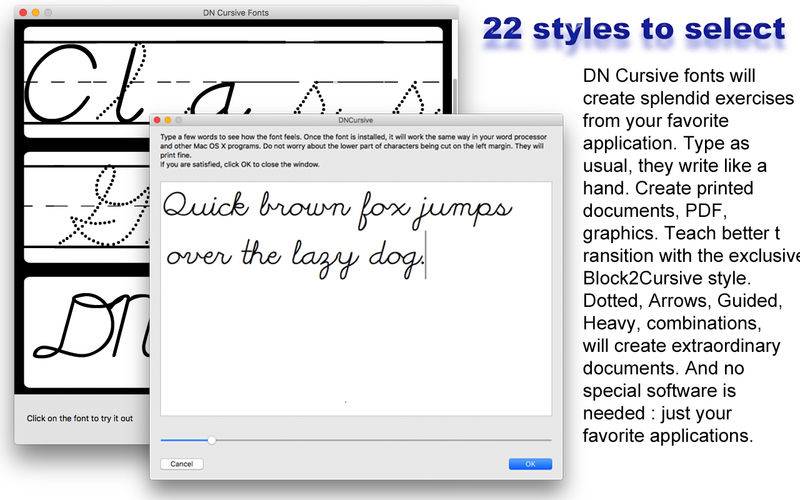
22 Cursive Fonts to create worksheets and exercises conforming to the D’Nealian method. After mastering Block Letters, students learn cursive handwriting where letters are linked.
These auto-connecting fonts link letters together without need for any additional software, and can be used to create handwriting exercises and worksheets.
Exclusive : the Block2Cursive style, where what the student already knows (Block Letters) appear solid, and what needs to be learned is dotted. Great to facilitate transition from separate letters to linked handwriting.
Fonts available : Block2Cursive, Block2Cursive Arrows, Block2Cursive Arrows Guided, Block2Cursive Classic (separate letters), Block2Cursive Classic Arrows Guided, Block2Cursive Classic Arrows, Block2Cursive Classic Guided, Block2Cursive Guided, DNCursive, DNCursive Arrows Guided, DNCursive Arrows DNCursive Classic, DNCursive Classic Arrows Guided, DNCursive Classic Arrows, DNCursive Classic Guided, DNCursive Dotted Arrows, DNCursive Dotted Arrows Guided, DNCursive Dotted Guided, DNCursive Heavy, DNCursiveHeavy Guided